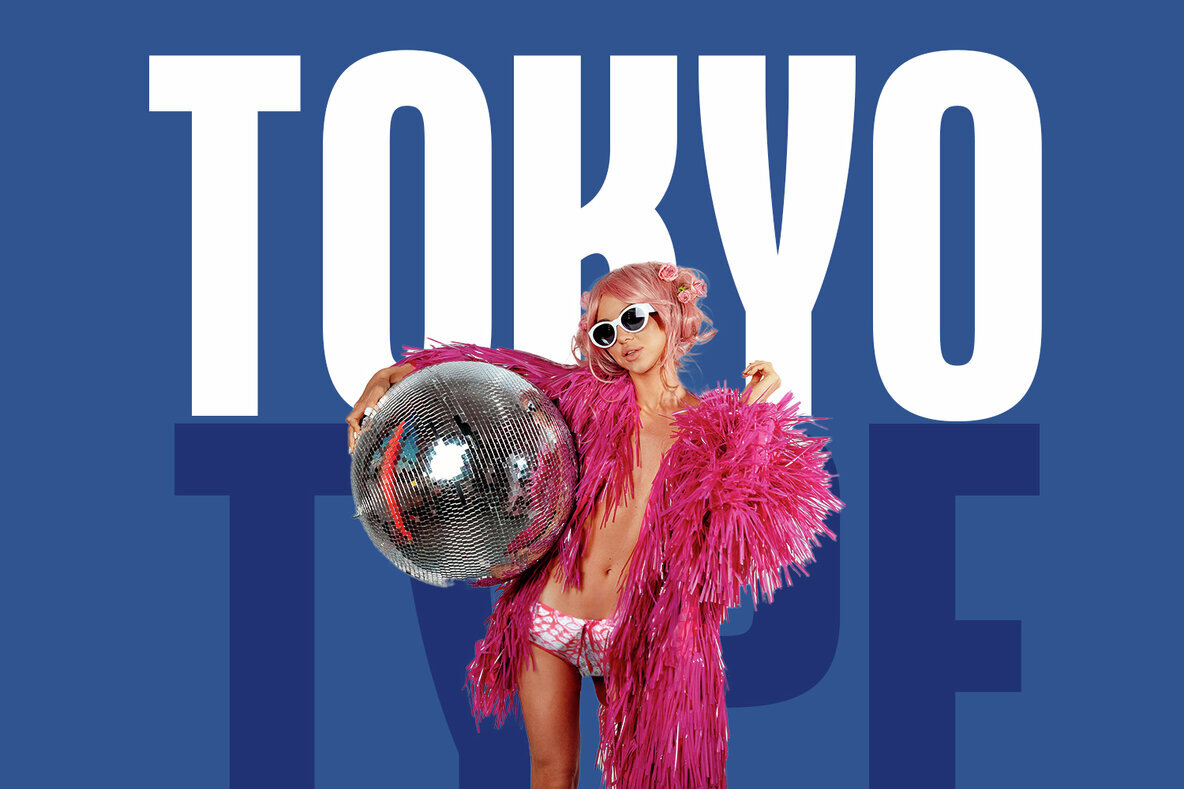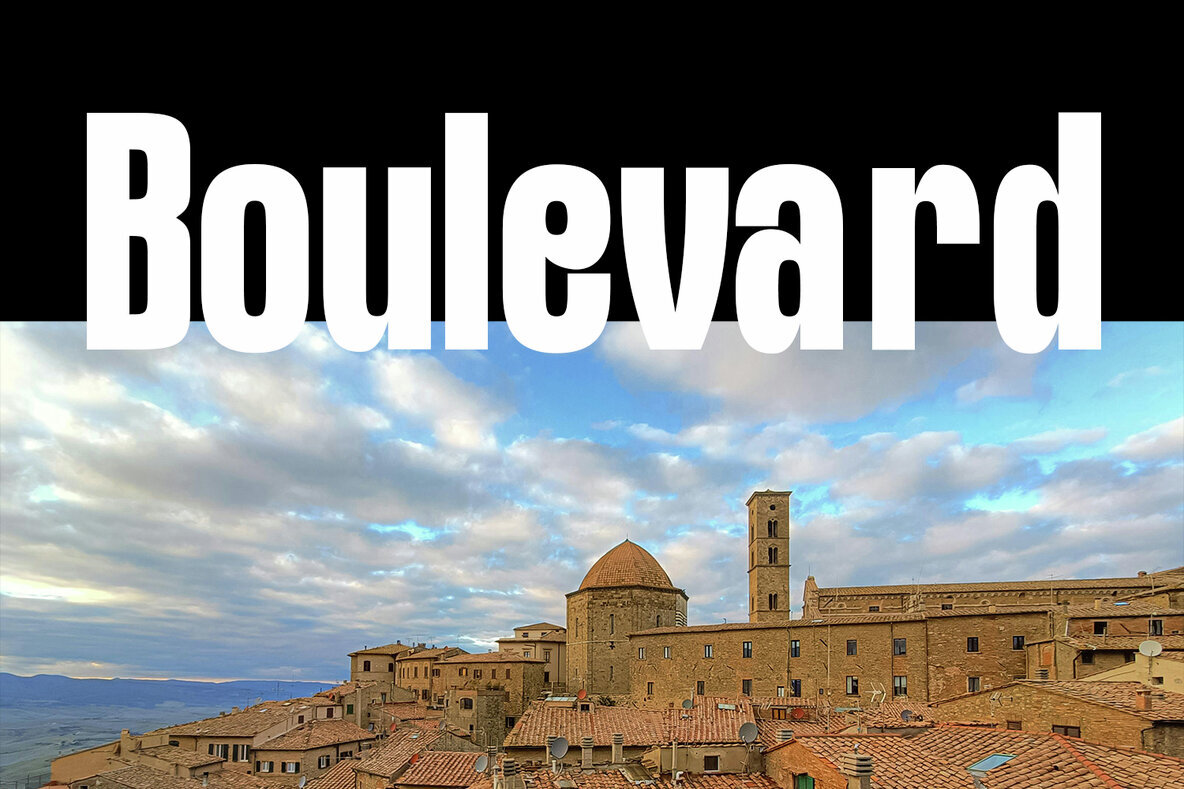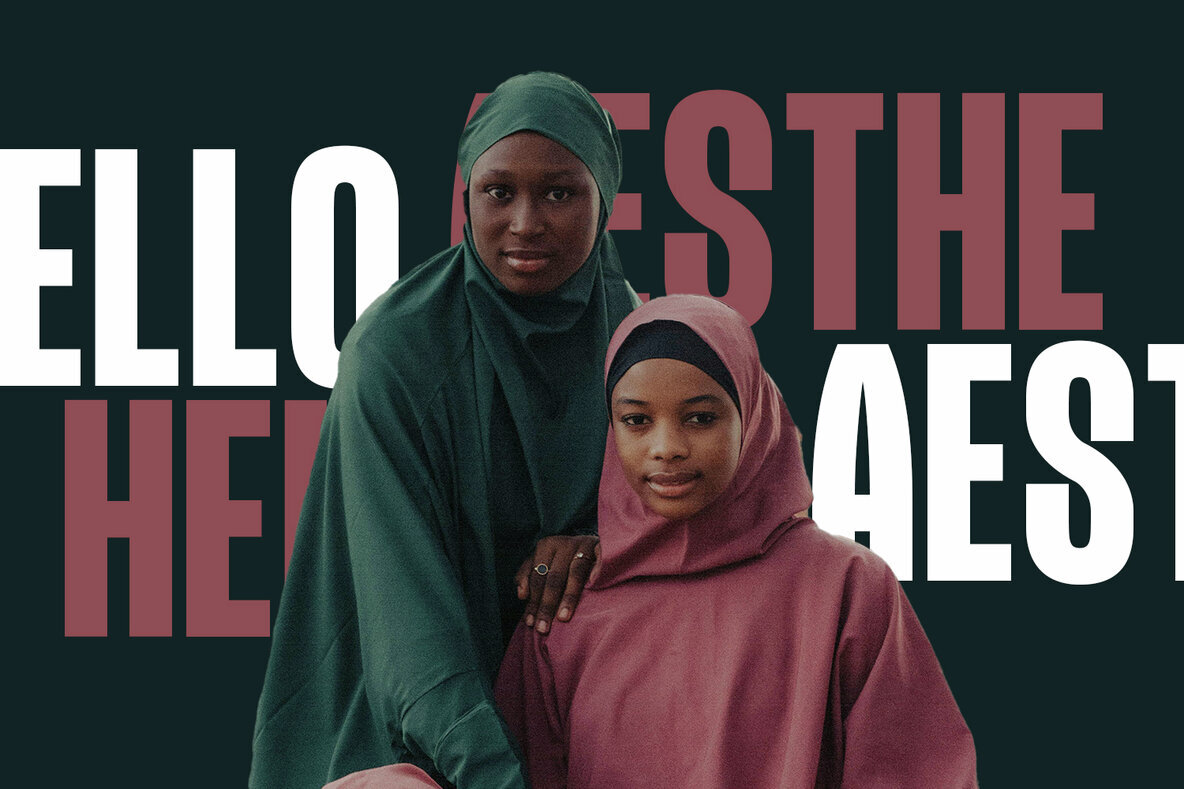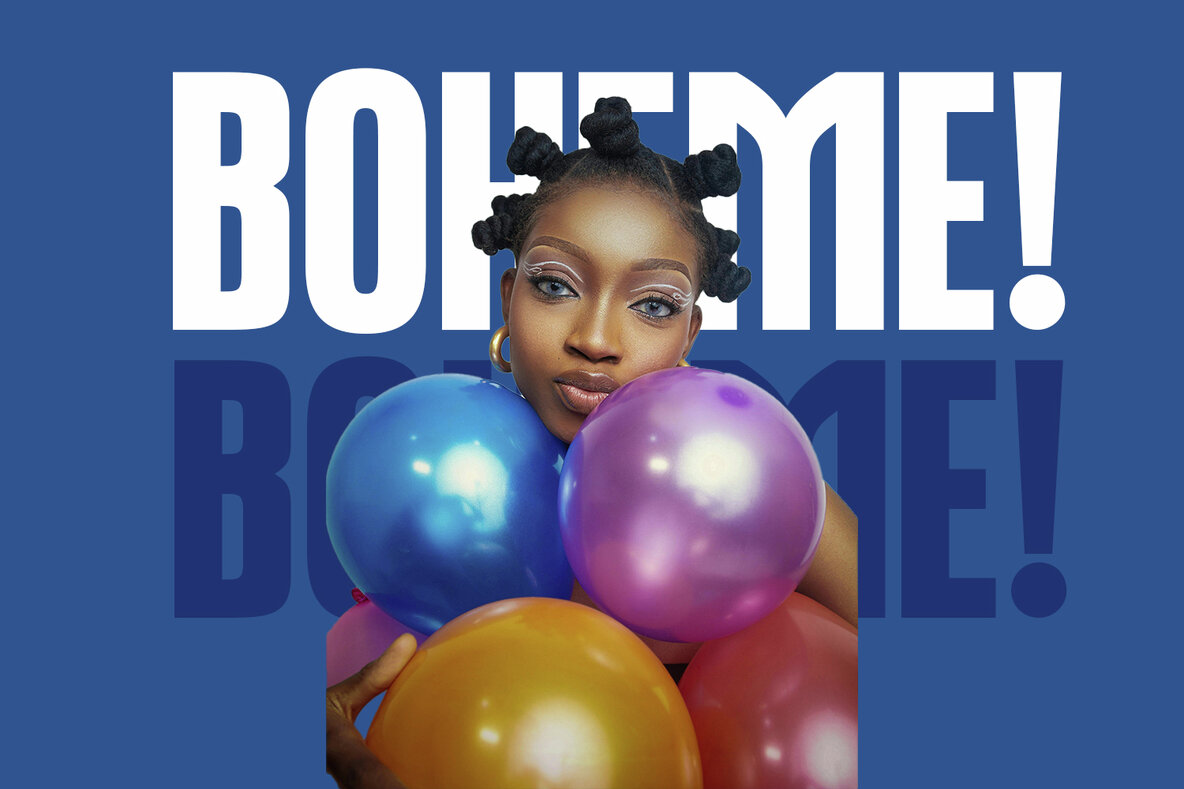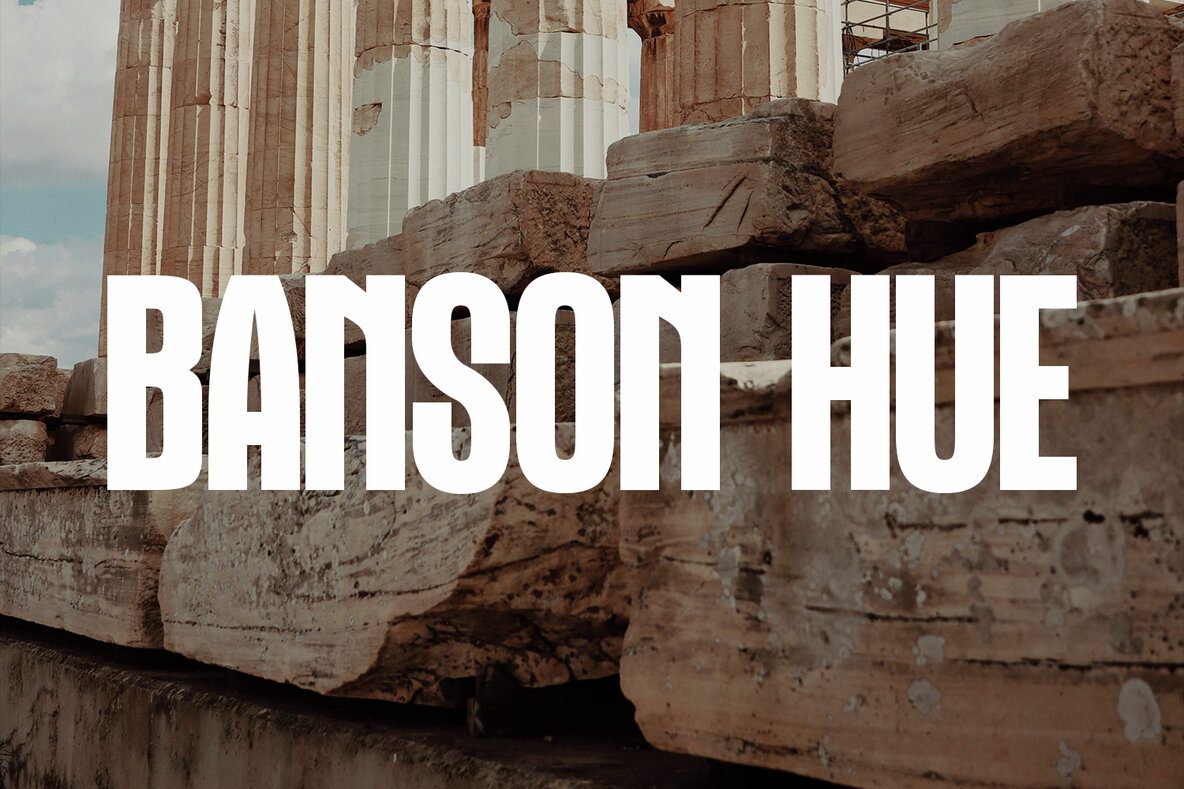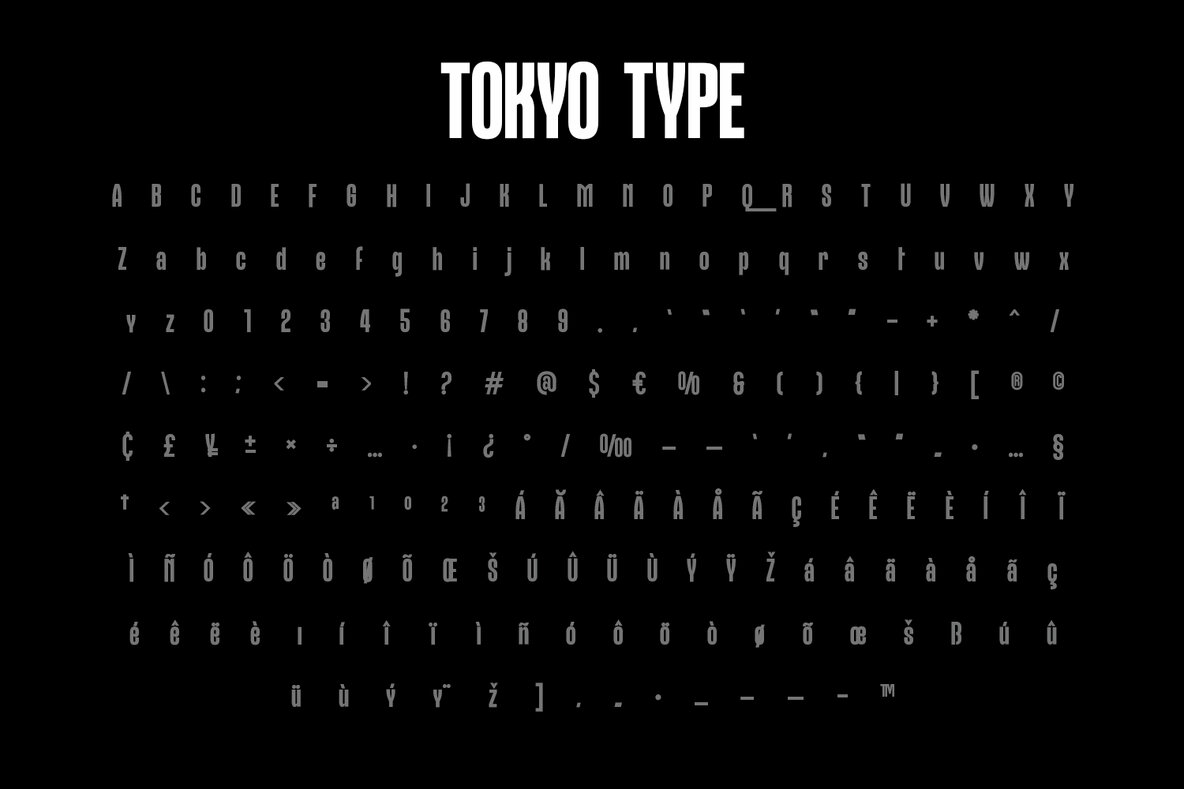
Tokyo Type Font
Tokyo Type is a contemporary typeface expertly crafted to make an impact. Featuring clean lines, sharp edges, and a geometric elegance, this font introduces a refined yet eye-catching aesthetic to any project. Available in four versatile weights, it allows for full control over hierarchy and visual tone—perfect for designs that are either light and understated or bold and commanding. Experience seamless performance with Tokyo Type across all web and print platforms. Ideal for magazine covers, posters, headlines, branding, and album art, its strong presence never sacrifices clarity or versatility. Whether designing minimalist layouts or bold editorial spreads, Tokyo Type consistently delivers professional, polished results. Embrace the modern edge of Tokyo with timeless typography for your design toolkit.Tokyo Type: A Modern Precision Typeface